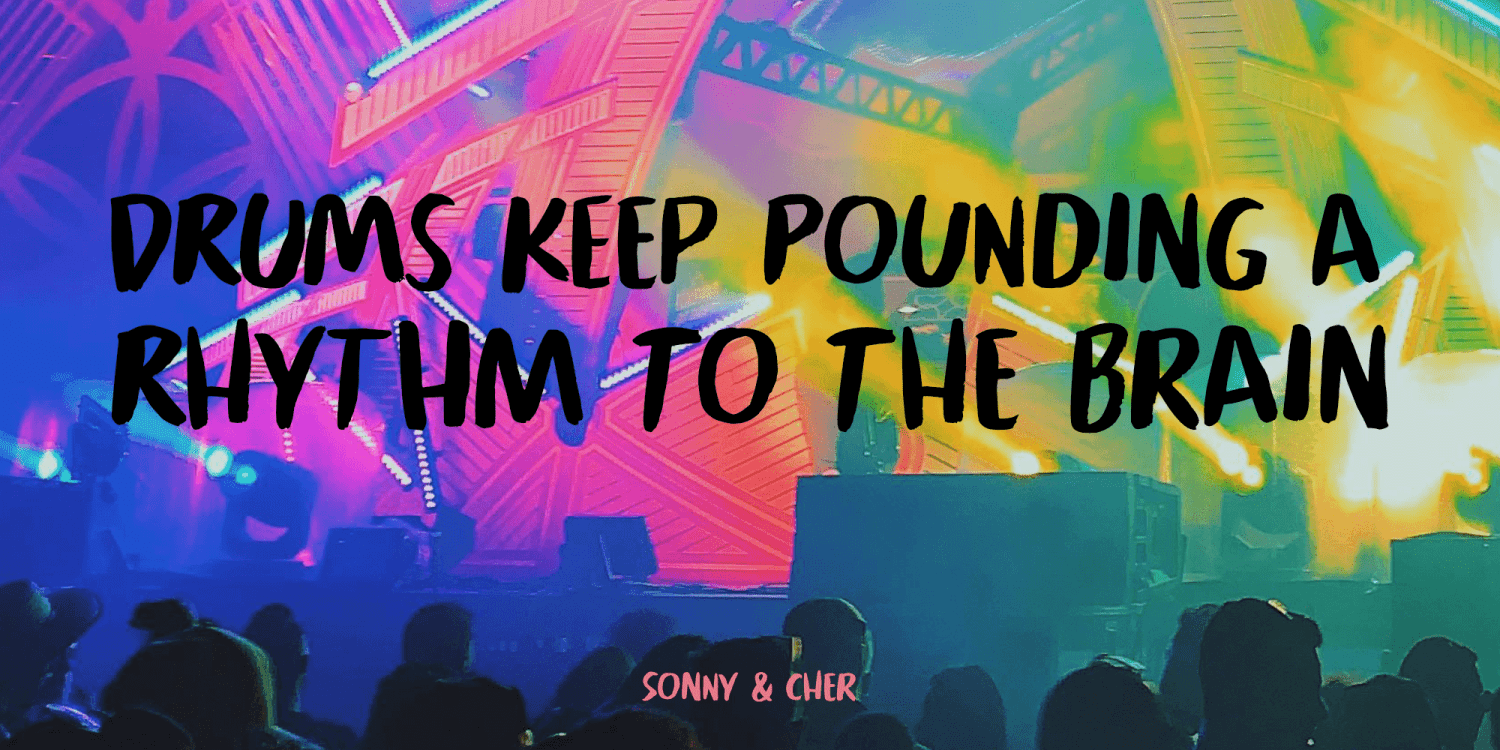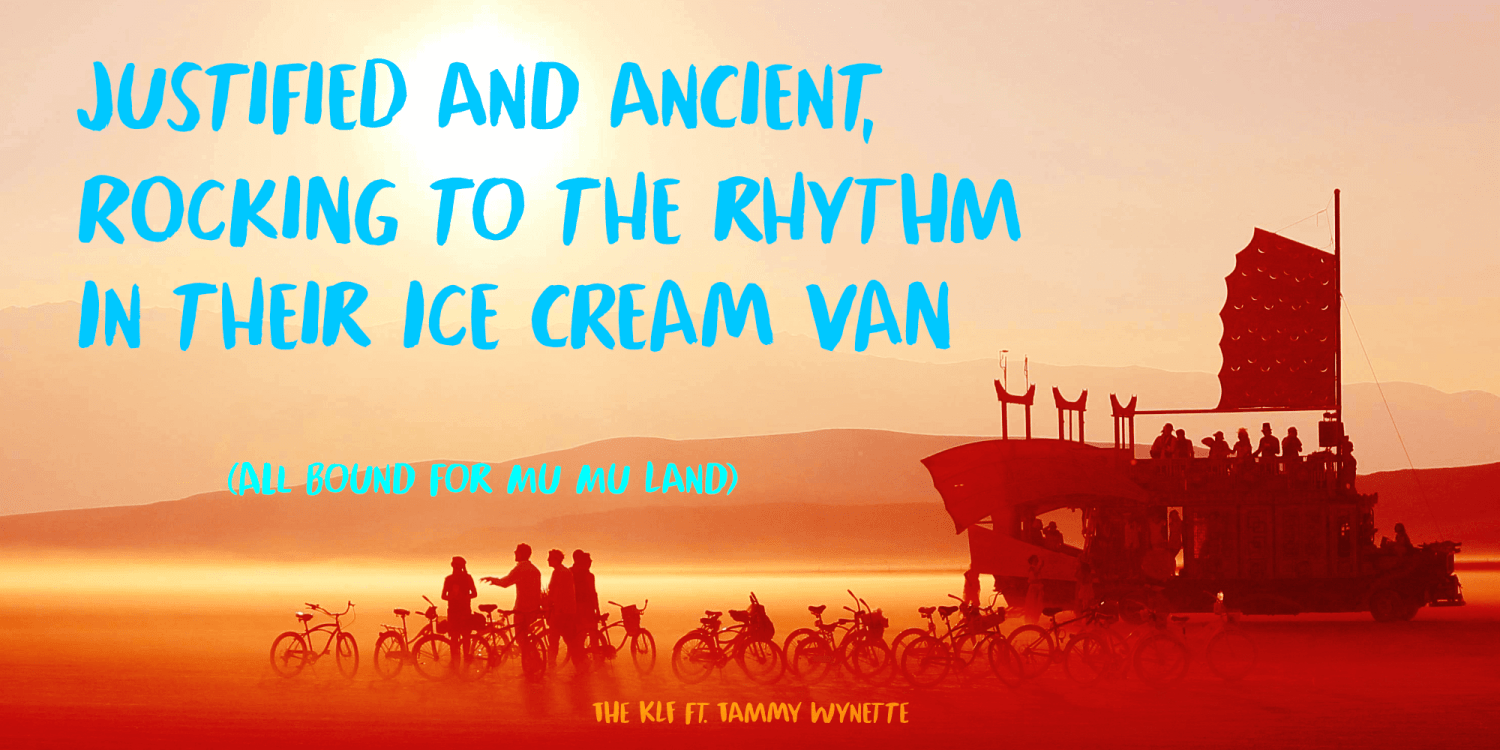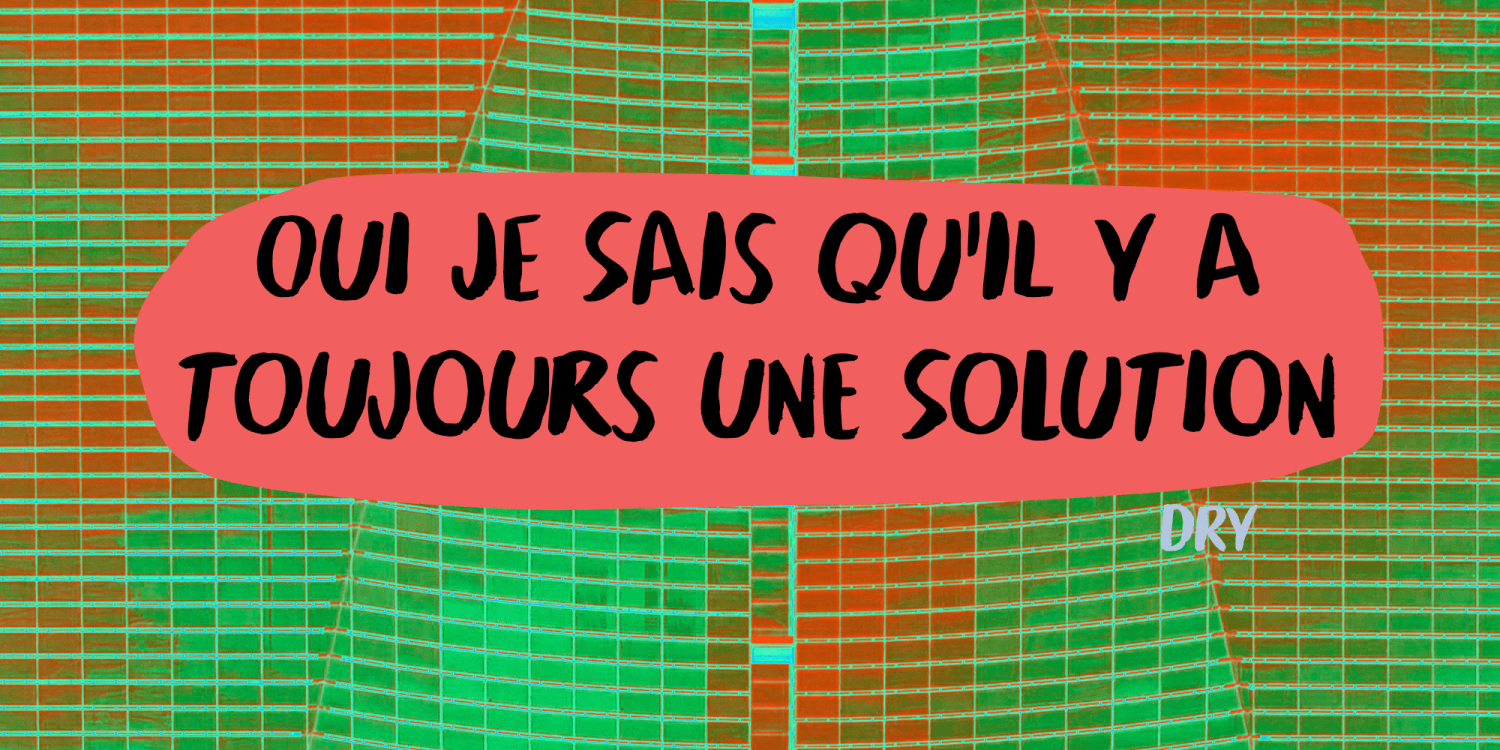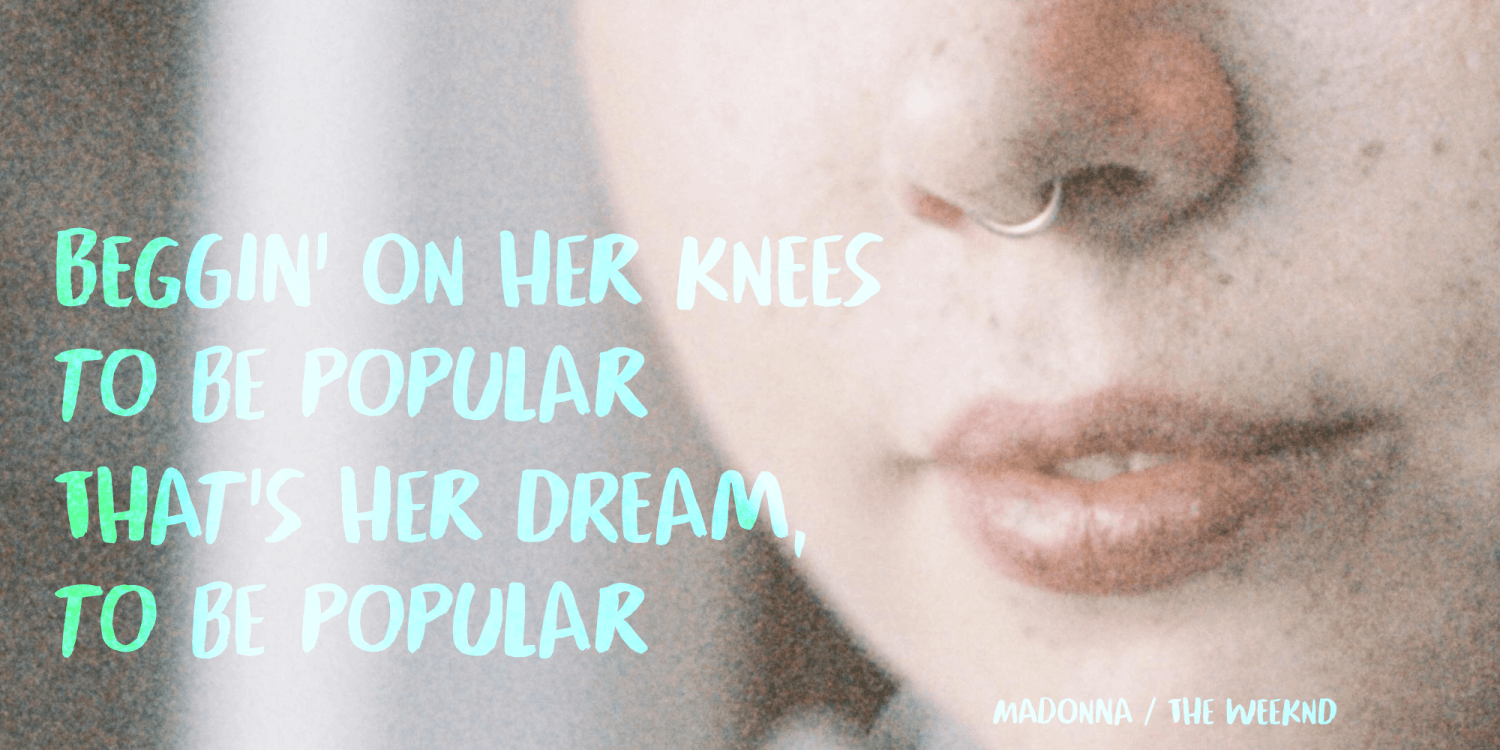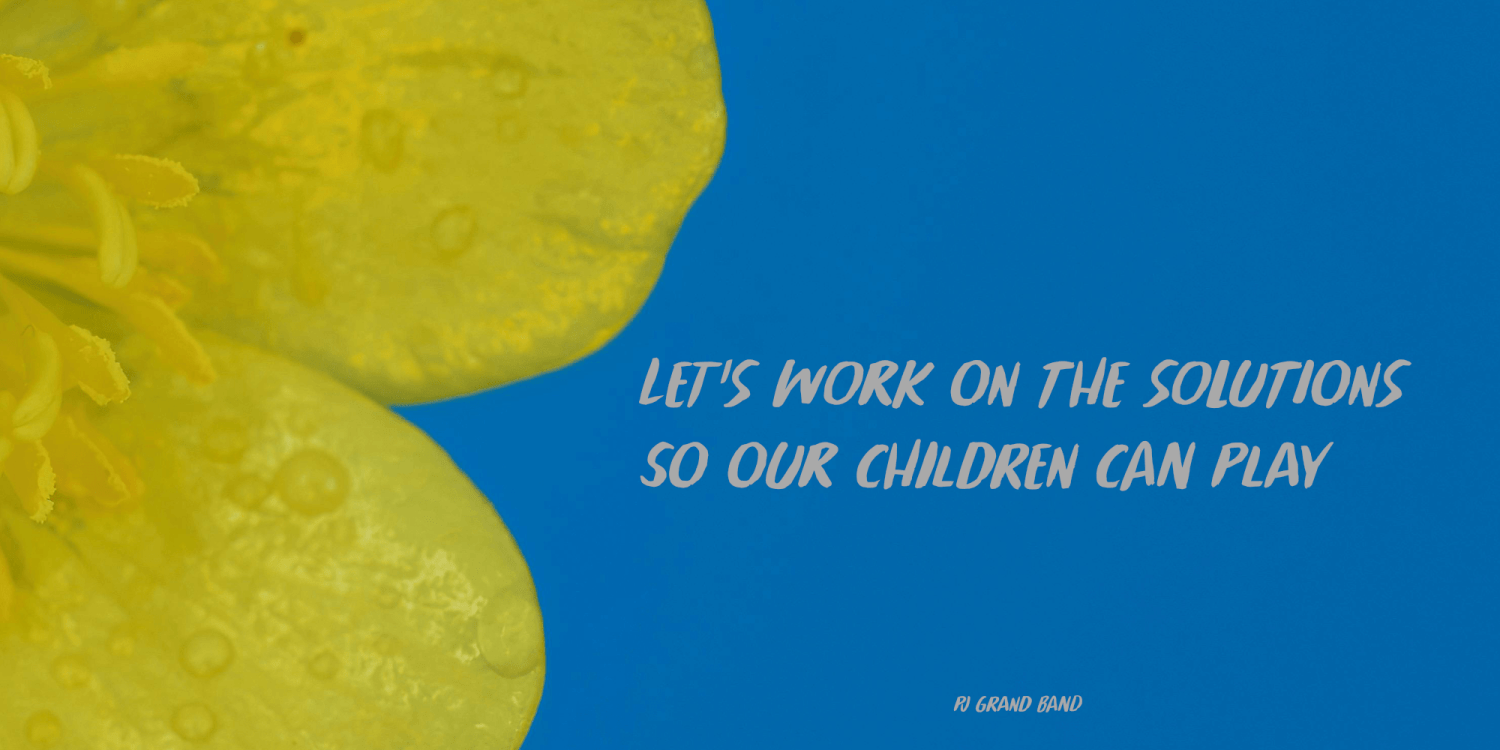
Popular Solution is a font I made with a soft, pointy brush and Chinese ink on 180gr water colour paper. The name? Well, I often use a random word generator for inspiration and look for a combination of words that just sounds good. Popular Solution is…